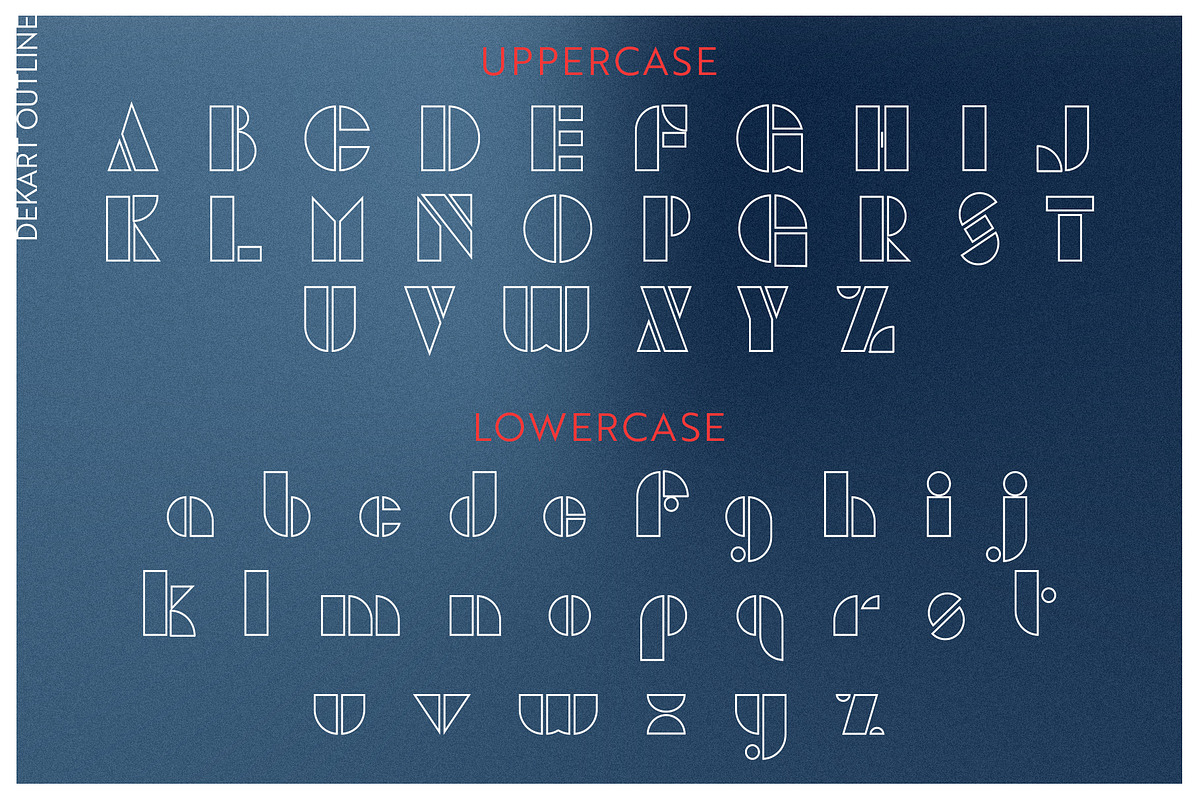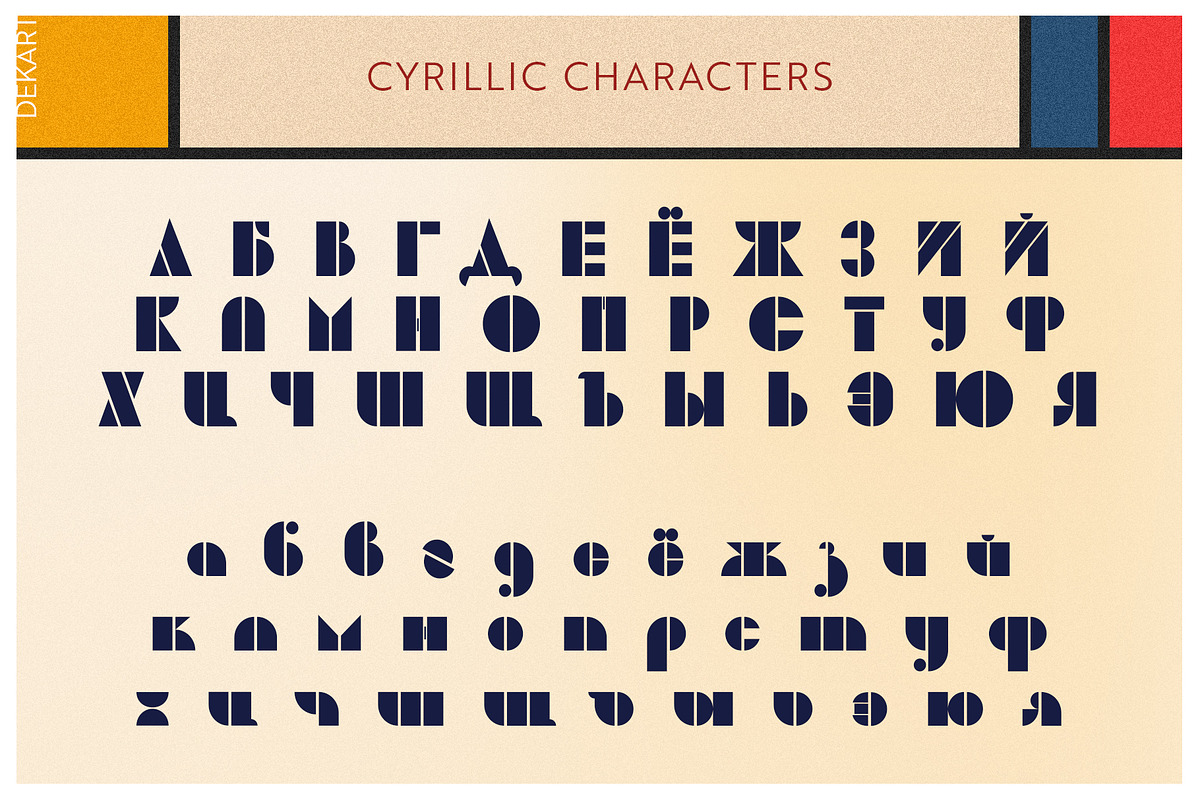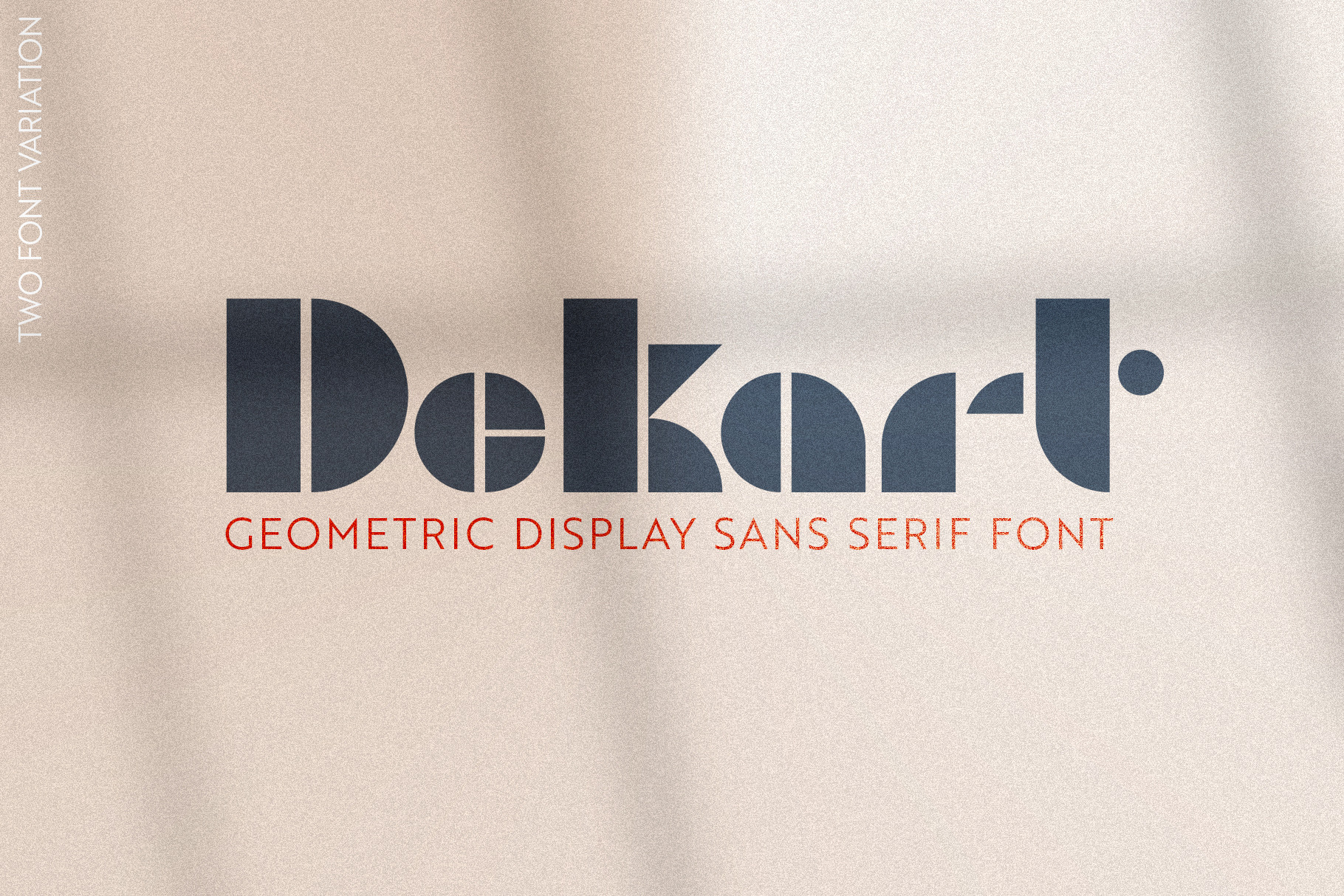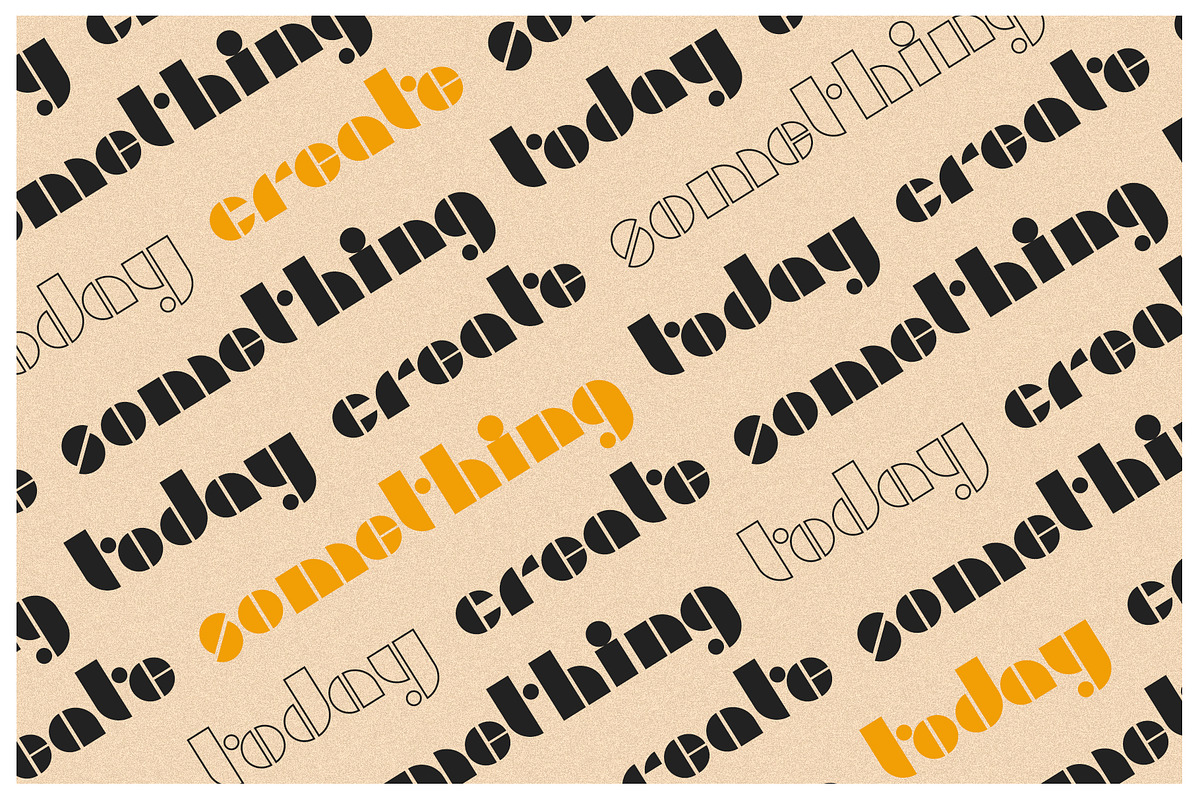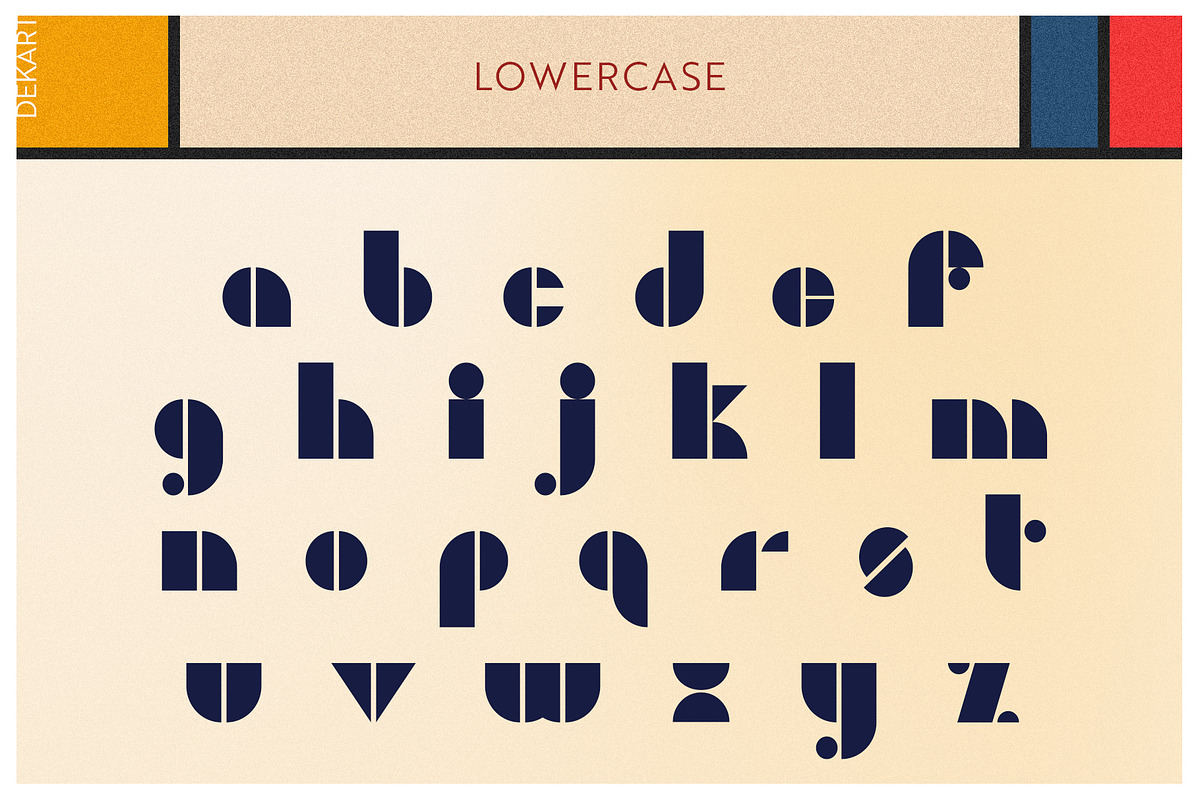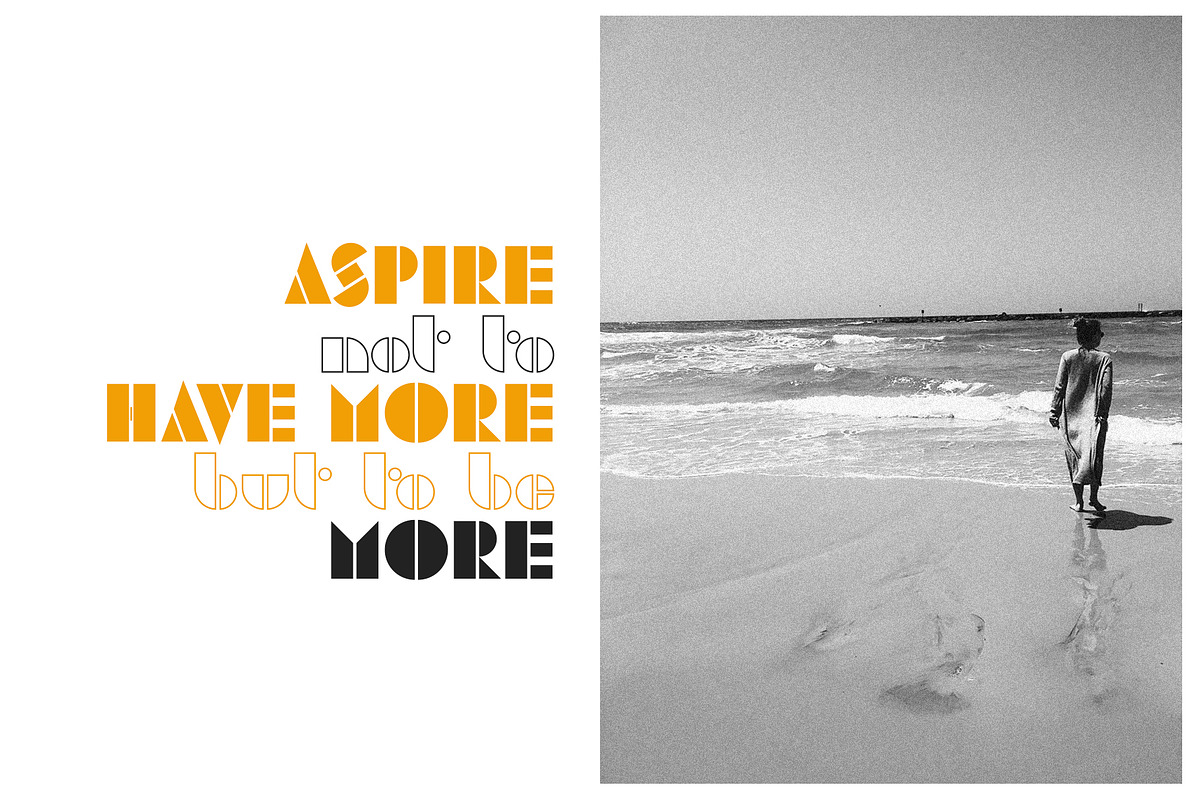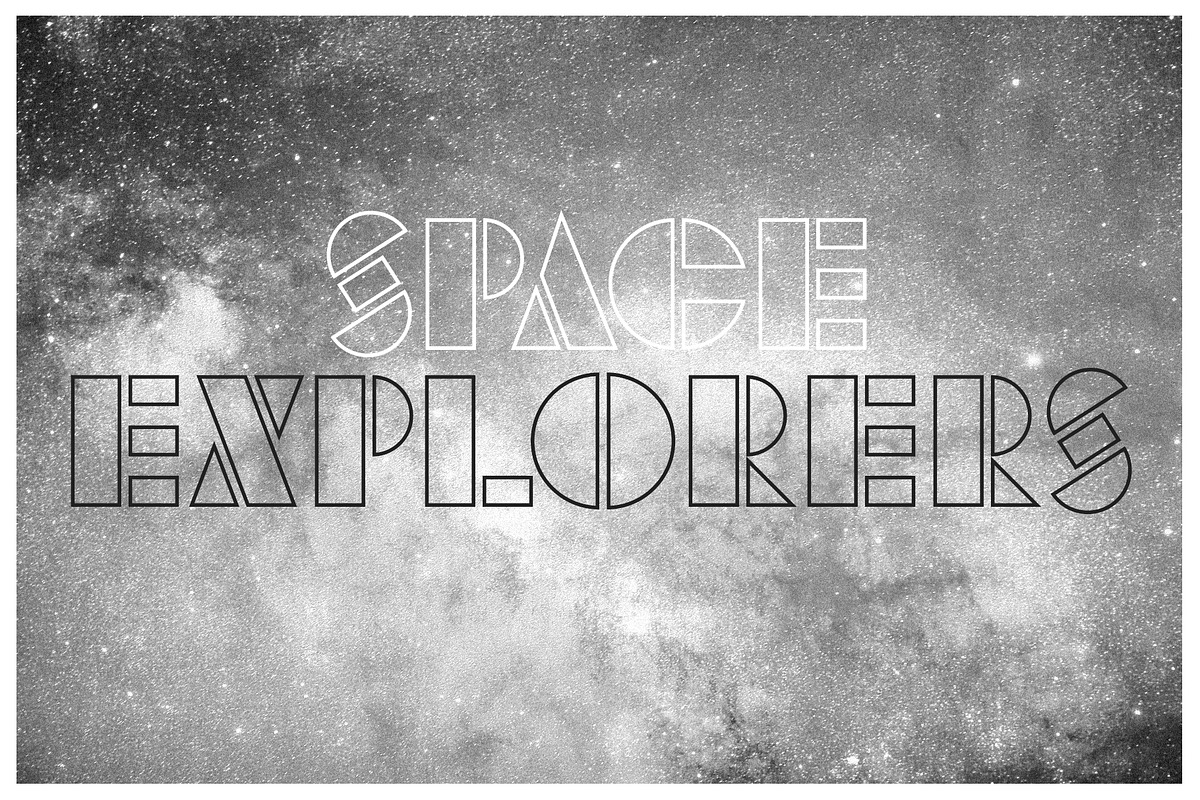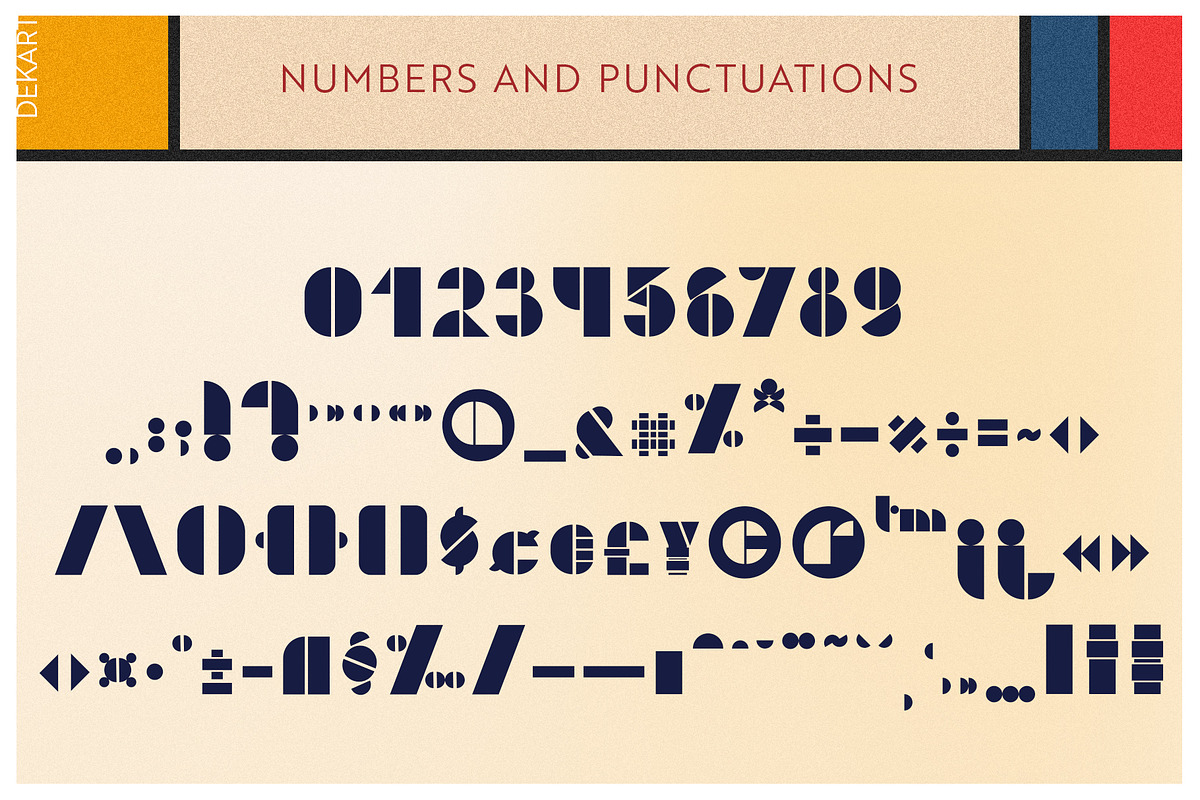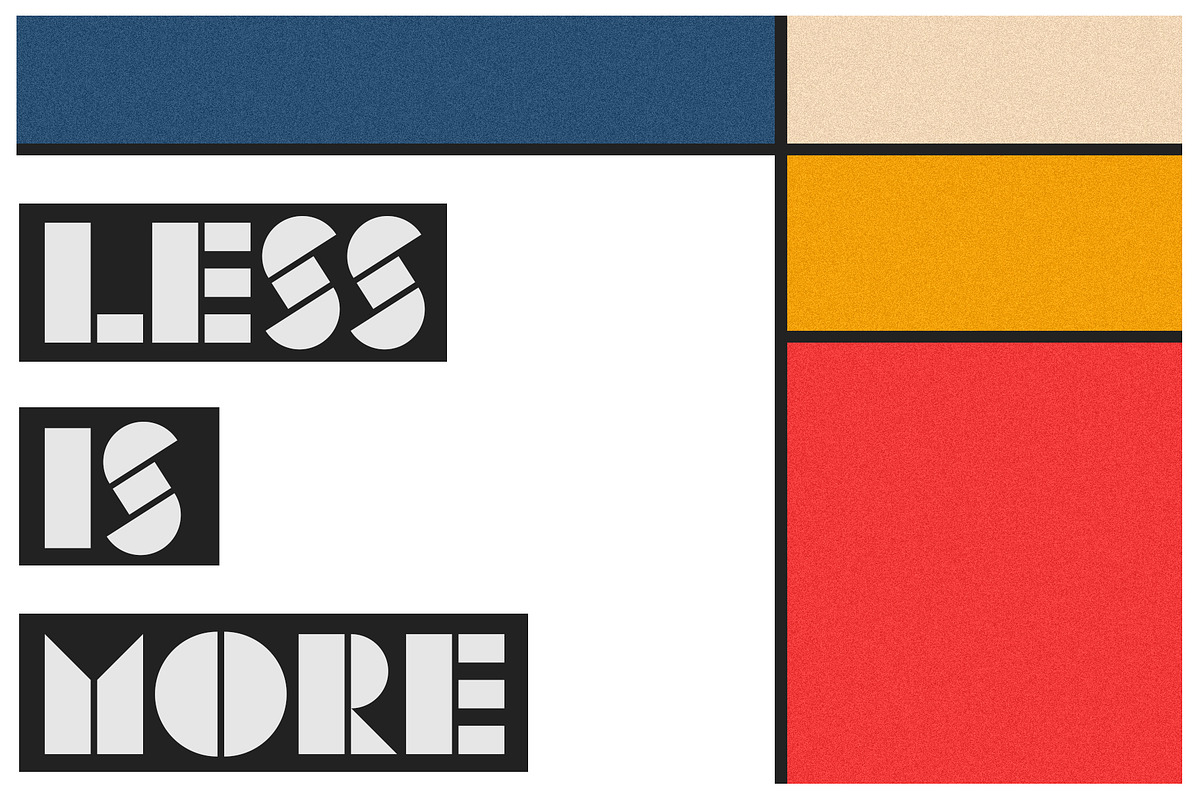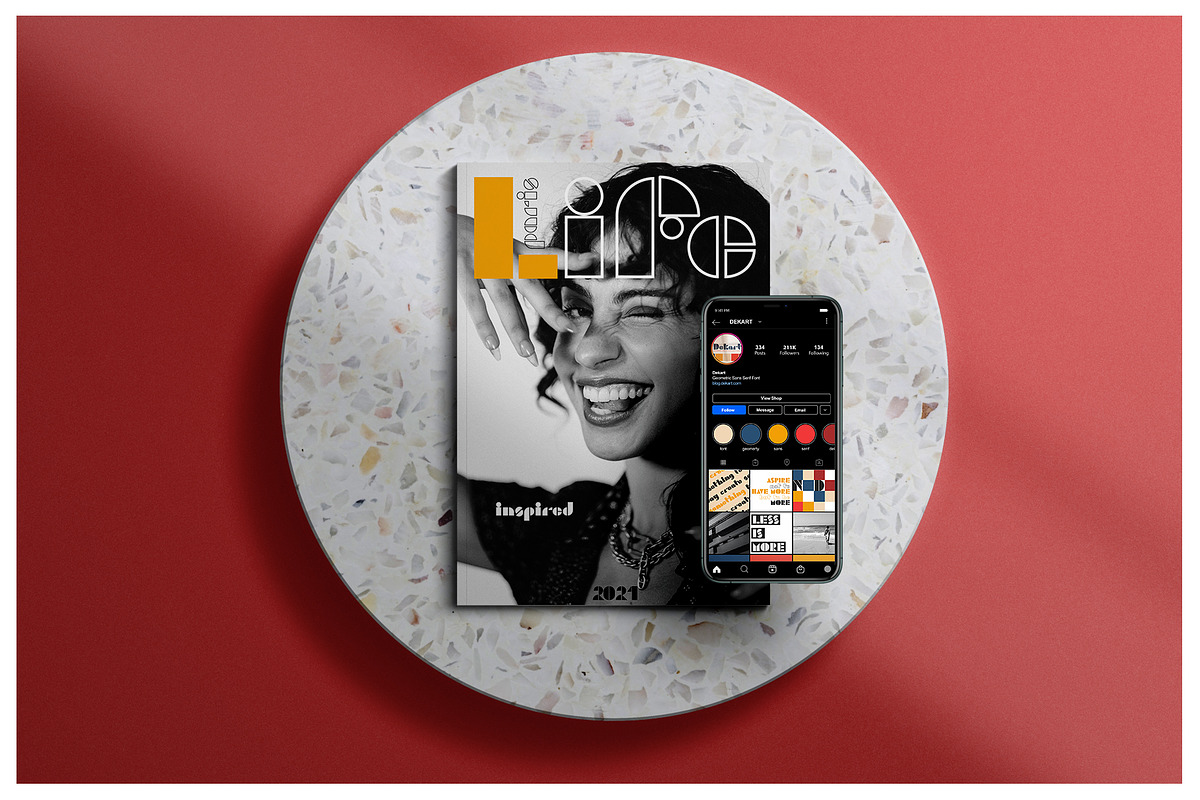
Dekart | Display Sans Serif Font
Dekart - new geometric display sans serif font. Inspired by clear geometric shapes and sciences, Art Deco and Bauhaus style. It consists two forms - bold and outline. This font perfect for all kind of design: social media and visual content, web and UI design, posters and art collage, branding or may be it will be wedding invitation in retro style. It can be both a modern design and a project in a retro style - as you wish.
Both fonts consist:
- Latin characters;
- Multilingual Support;
- Cyrillic characters;
- Numbers;
- Punctuation.